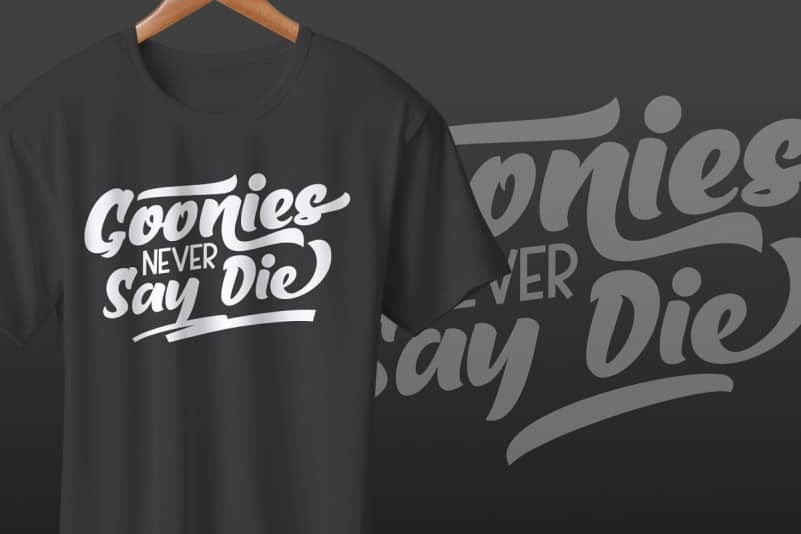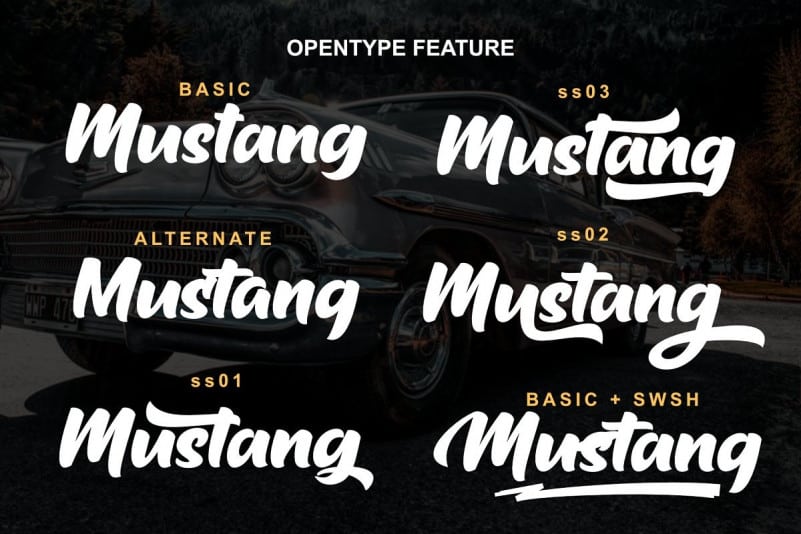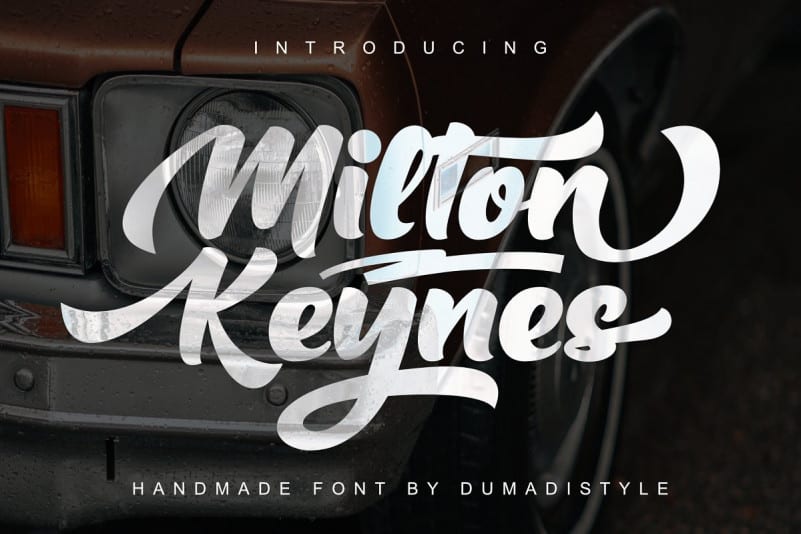
Milton Keynes Script Font
Introducing Milton Keynes Script Font – A new carefully crafted and nicely balanced curves on a script typefaces with personality. It is a script typeface from the designer DUMADI. This typeface is a modern thick font that comes from hand scratches so it is great for branding logos, t-shirt designs, posters, business cards, typography, newspapers, other design projects and many other media that can be manipulated with this font.